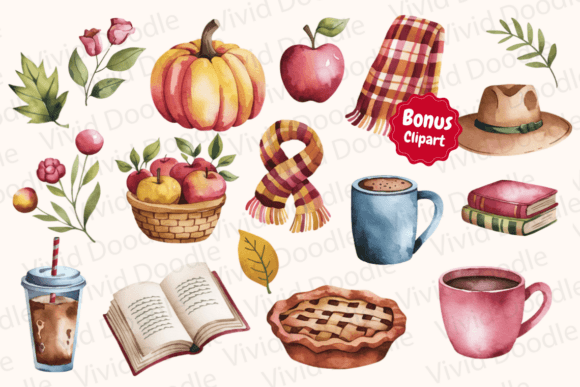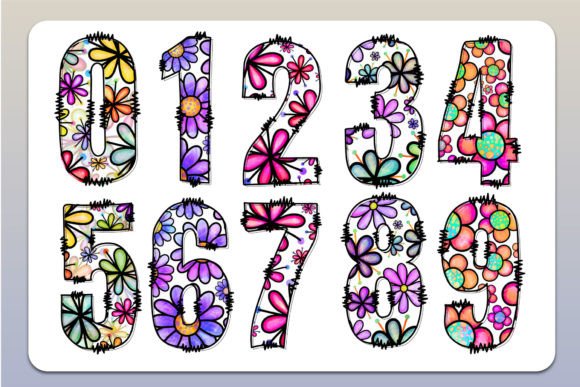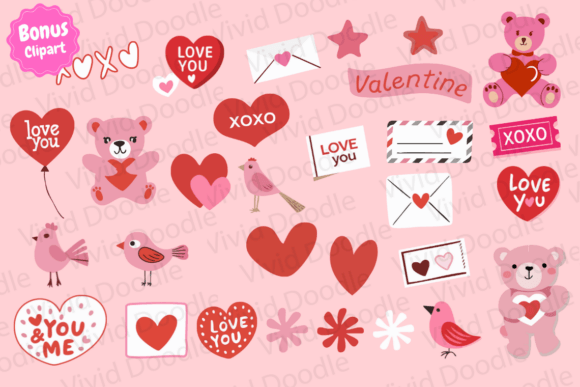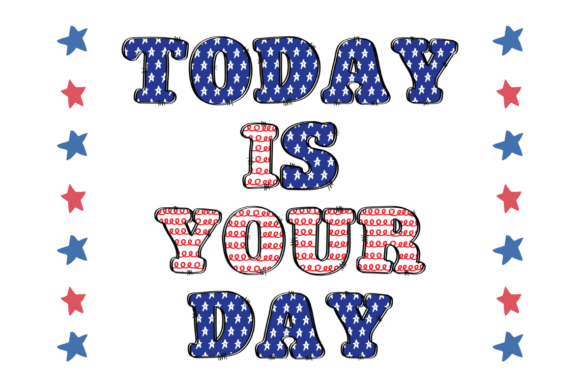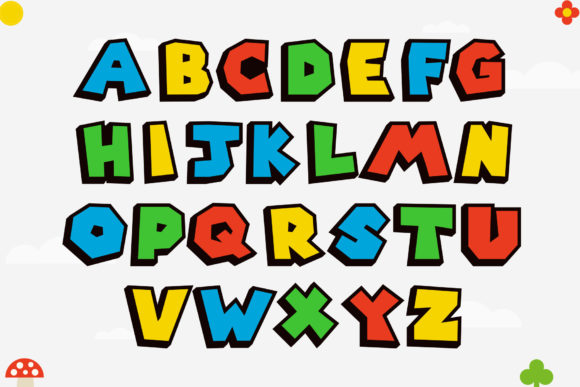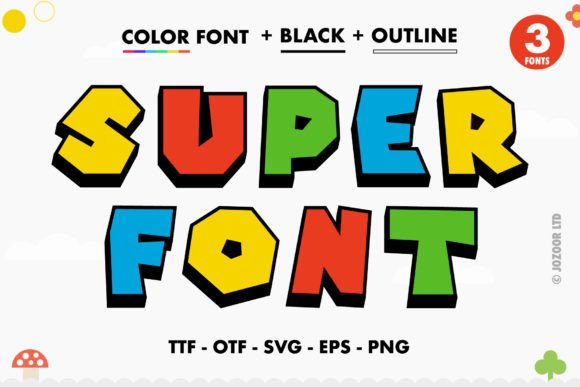
Victory Celebration Font
As a designer, colorful fonts give me a powerful way to turn typography into a visual experience, not just text. I use them when I want letters to act like illustrations, adding emotion, movement, and personality without extra graphics. Colorful fonts are perfect for headlines, posters, seasonal designs, branding, social media content, kids’ projects, and celebratory themes where energy and joy matter.
What I appreciate most is how they instantly set the mood. A patriotic color font can communicate celebration and pride, while playful, doodle-style fonts create warmth and approachability. Valentine and floral color fonts add charm and emotion, making designs feel expressive and inviting. These fonts save time by combining color, texture, and shape into one cohesive element.
I also like how colorful fonts encourage creativity. They push me to design bolder layouts, use fewer decorative elements, and let typography lead the composition. When used thoughtfully, they make designs memorable and visually strong without feeling cluttered. Colorful fonts help my projects feel lively, modern, and full of character, turning simple words into eye-catching design statements.
Patriotic Alphabet Font
Victory Celebration Font
I like using the Victory Celebration font when I want designs to feel bold, festive, and full of energy. The colorful, patriotic letterforms instantly draw attention and work perfectly for holidays, events, posters, and celebratory graphics. I enjoy how each letter feels like a small illustration on its own, which makes headlines and short phrases really stand out. This font is great when I want typography to become the main visual element.
Super Font
I enjoy working with the Super font because it feels playful, confident, and modern. The thick, rounded letters give designs a fun, youthful vibe that works well for posters, kids’ projects, stickers, branding, and social media graphics. I like that it’s PUA encoded, which makes experimenting with glyphs easy. This font helps my designs feel energetic and expressive without much effort.
Heart Valentine Font
Embracing Colorful Fonts
Heart Valentine Font
I love using the Heart Valentine font for romantic and cheerful designs. The heart details and soft curves add warmth and sweetness, making it perfect for Valentine’s Day projects, greeting cards, invitations, and love-themed crafts. I appreciate how playful yet readable it is, even for longer words. This font helps my designs communicate affection in a light, joyful way.
Cozy and Fall Doodle Font
I like this font when I want to create a warm, seasonal mood. The doodle-style details feel cozy and nostalgic, making it ideal for fall invitations, classroom projects, posters, and holiday decor. I enjoy how it instantly brings an autumn atmosphere to a design, even with minimal graphics. It’s perfect for adding character and seasonal charm.
Daisy Font
I enjoy using the Daisy font when I want something soft, cheerful, and decorative. The floral details make designs feel light and friendly, perfect for spring projects, quotes, planners, and creative layouts. I like that it works beautifully as a decorative accent font, adding personality without overwhelming the design. This font brings a fresh, happy feeling to my work.
In conclusion, colorful fonts offer designers a unique way to communicate emotion, energy, and personality through typography alone. From a creative perspective, they transform text into a visual centerpiece, reducing the need for extra decoration. When chosen with intention, colorful fonts enhance storytelling, capture attention instantly, and make designs more memorable. They are an essential tool for creating bold, joyful, and expressive visuals that stand out across both digital and print projects.